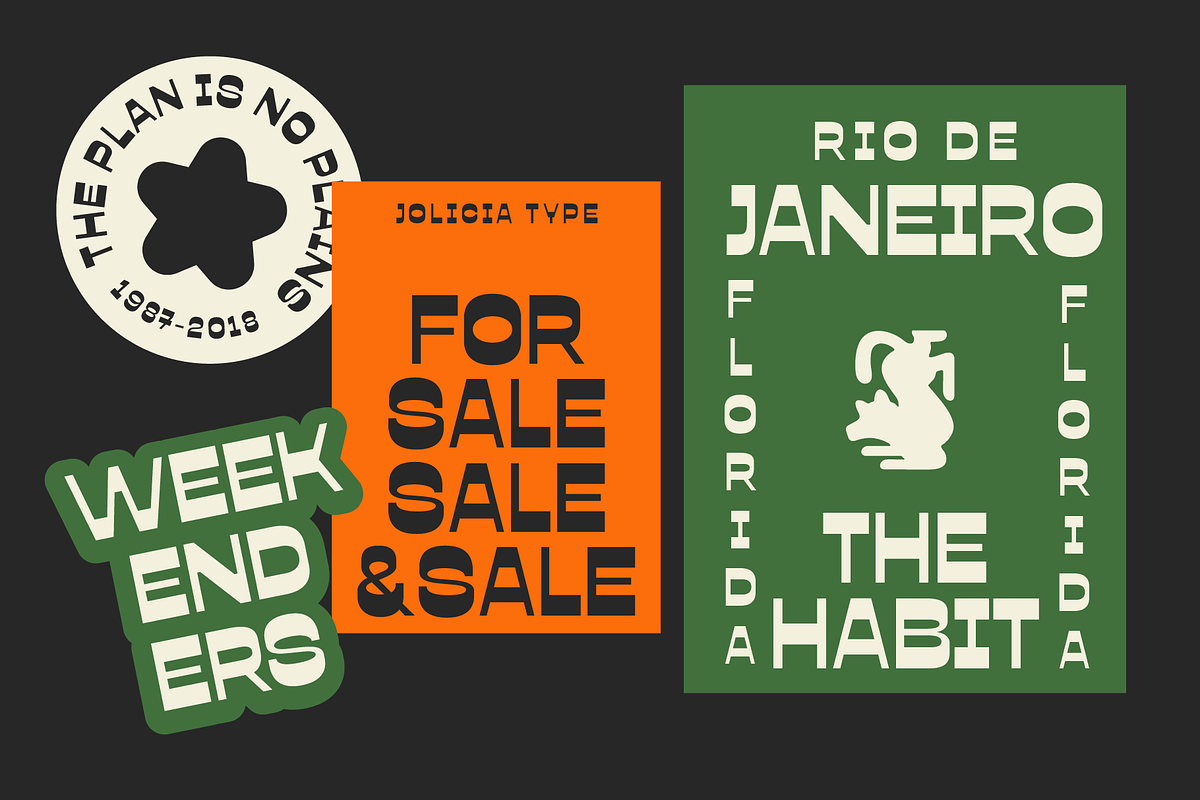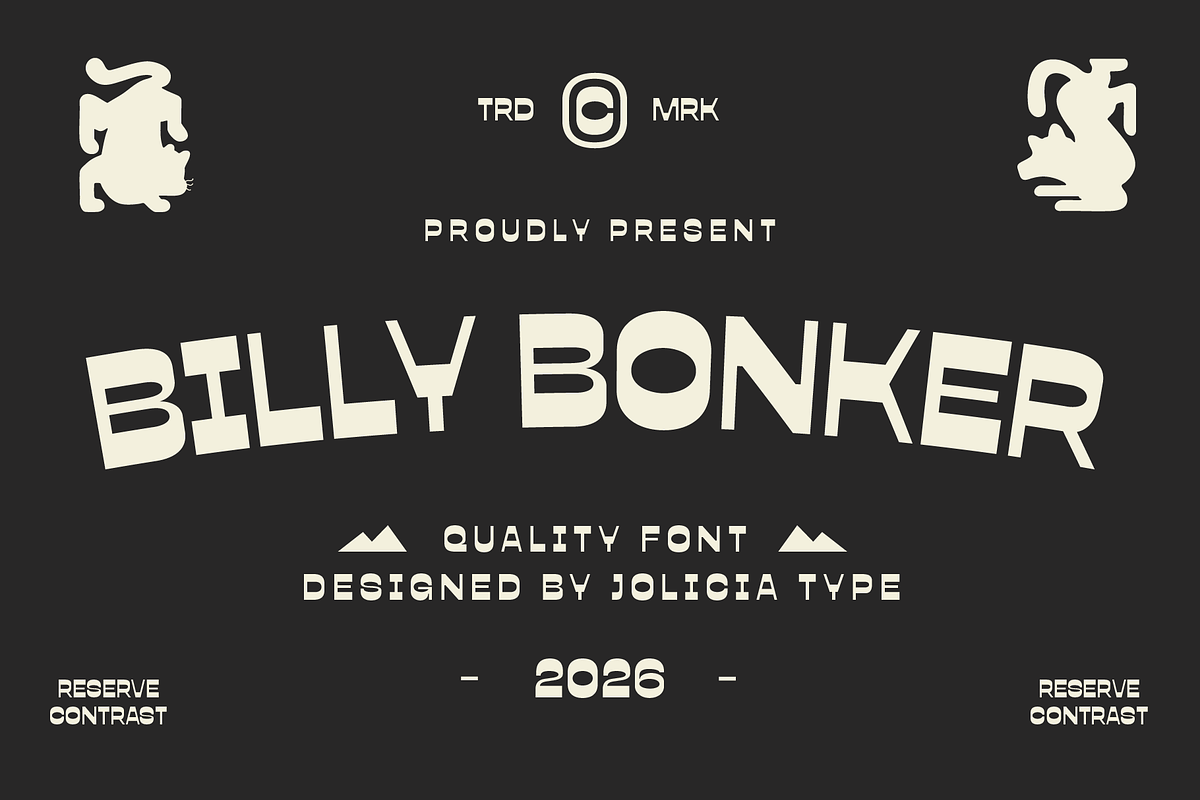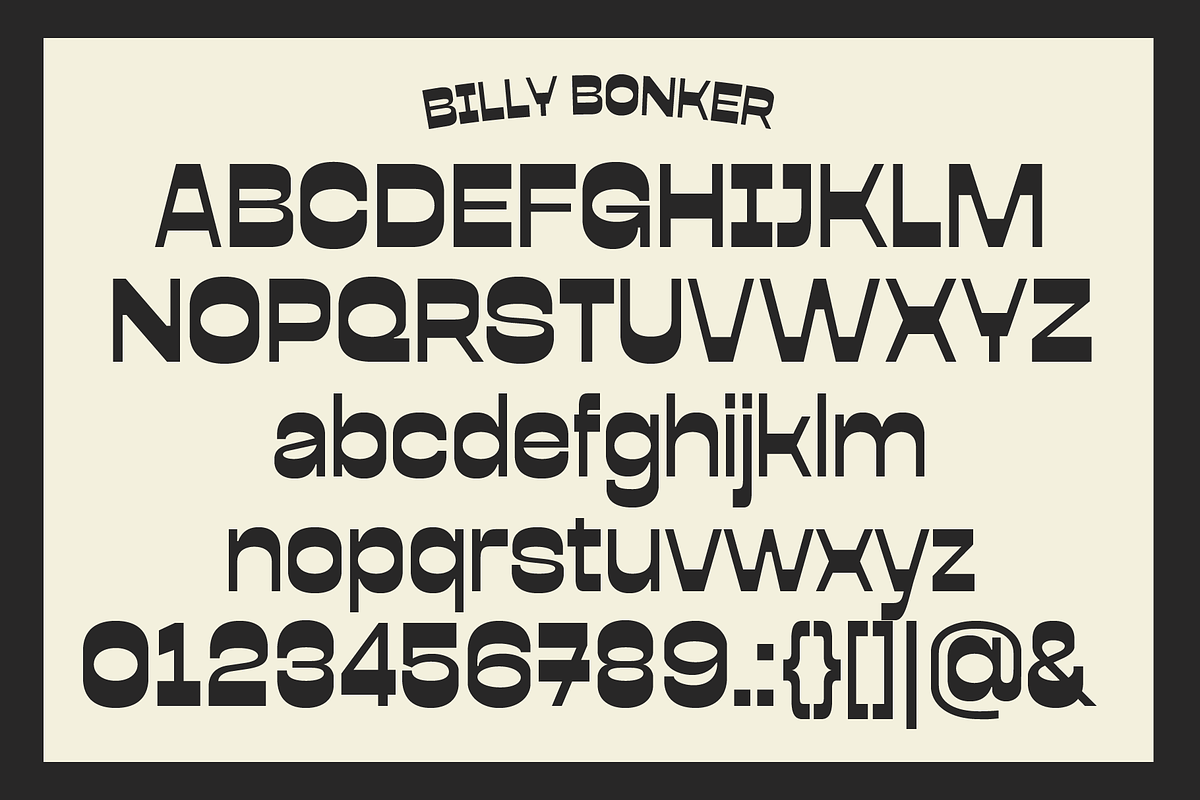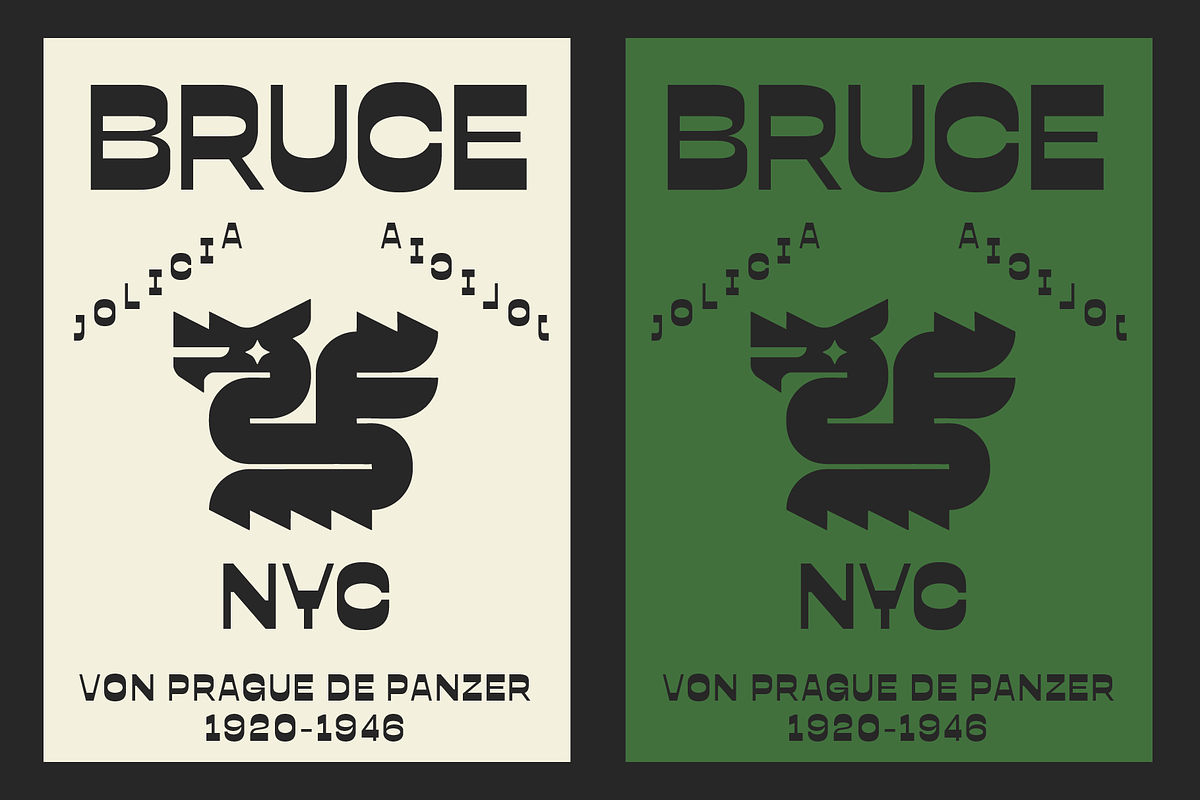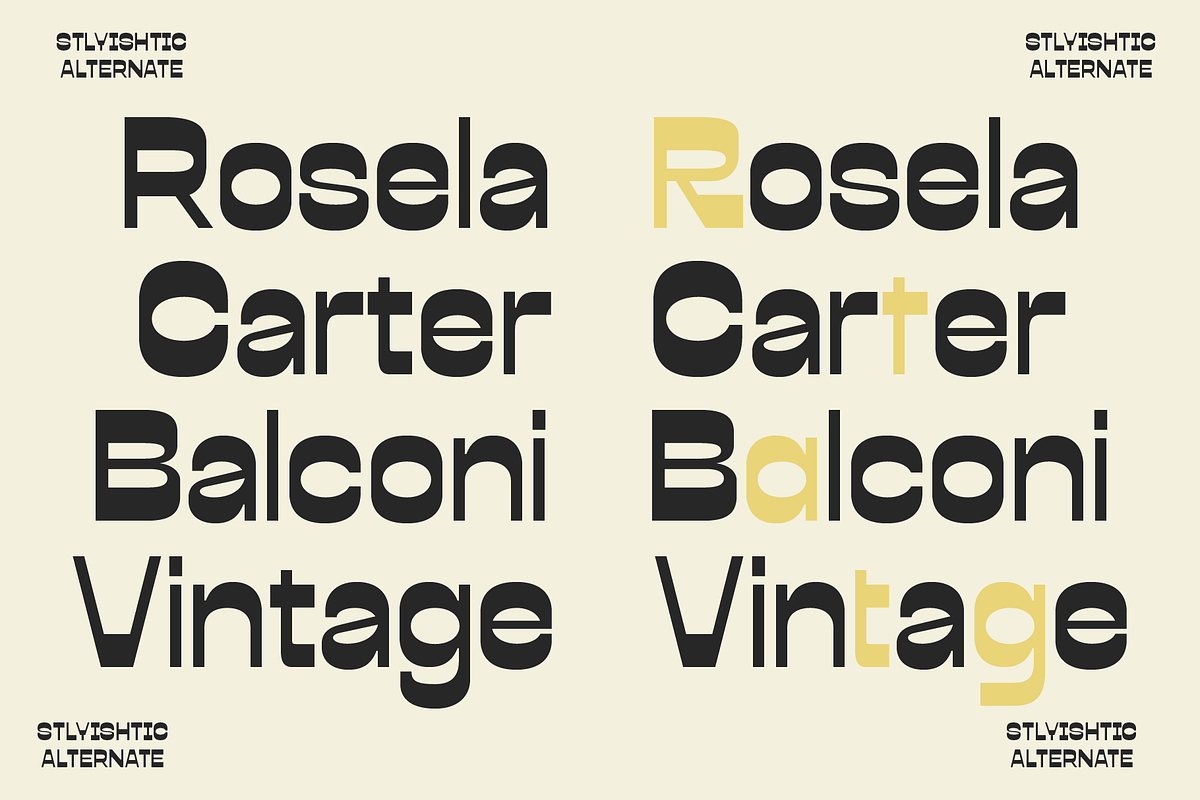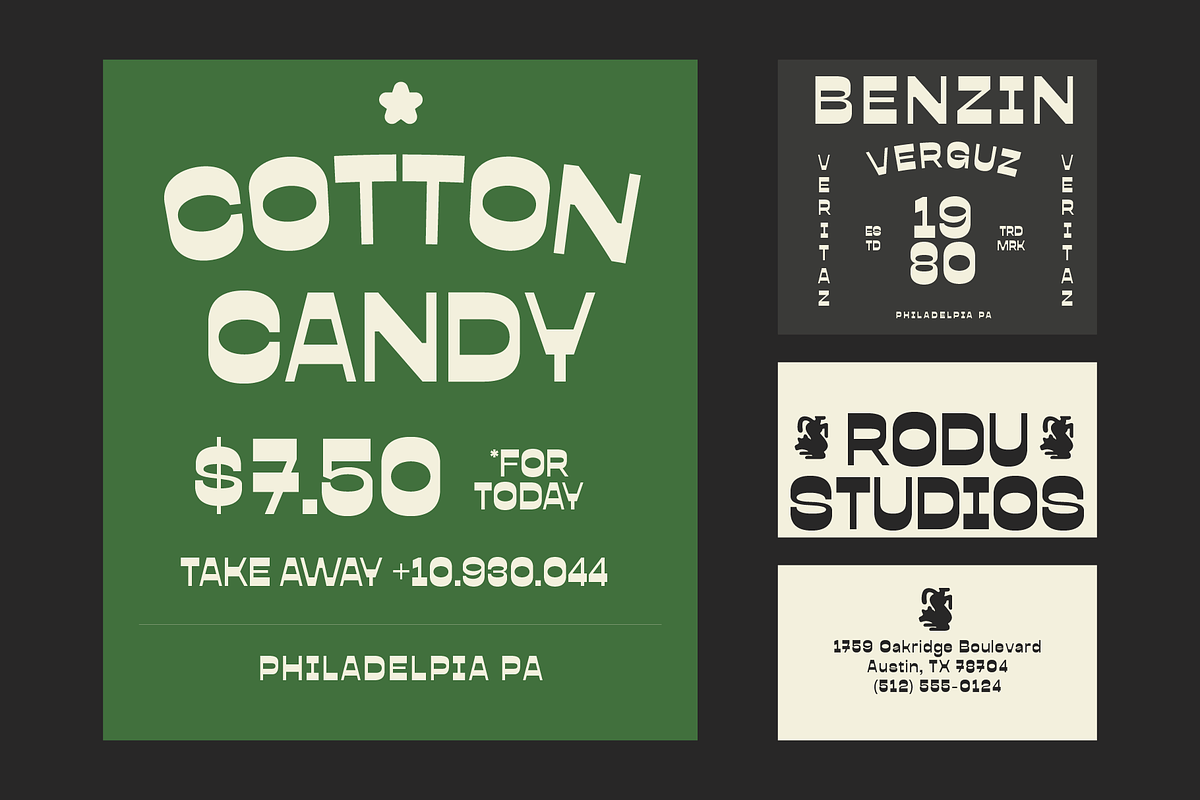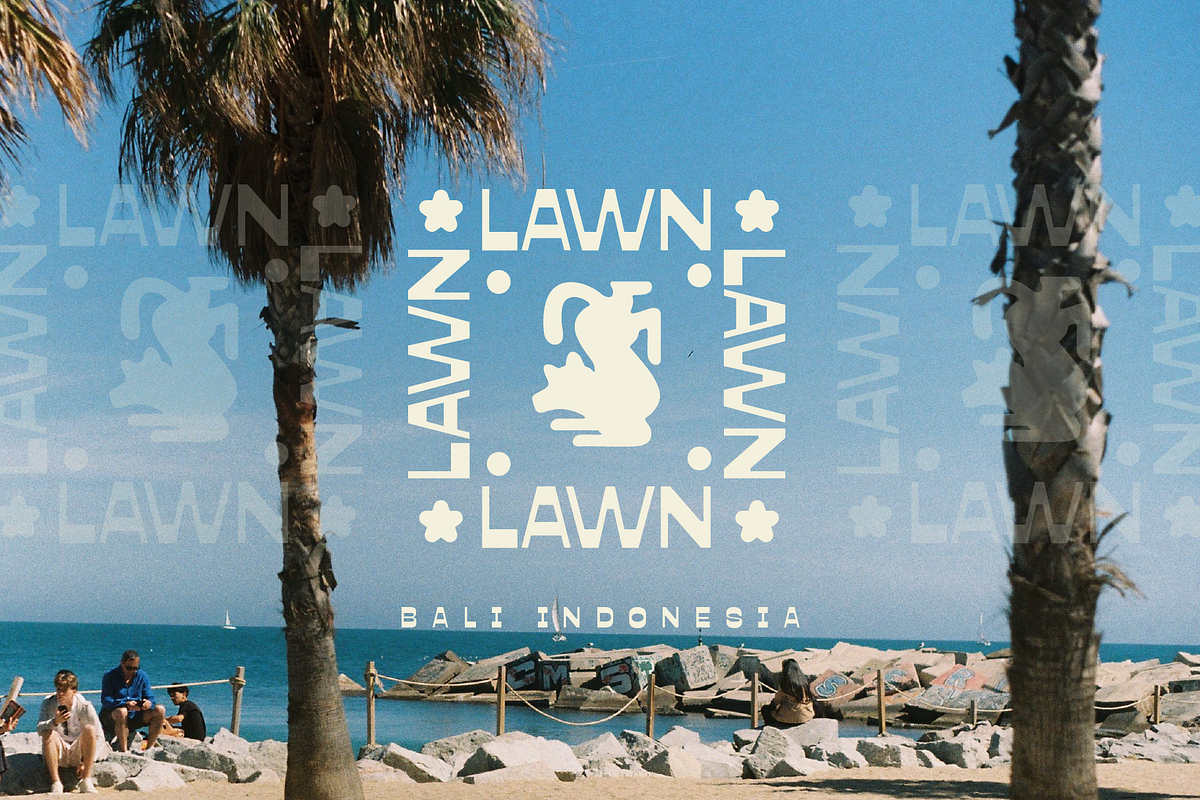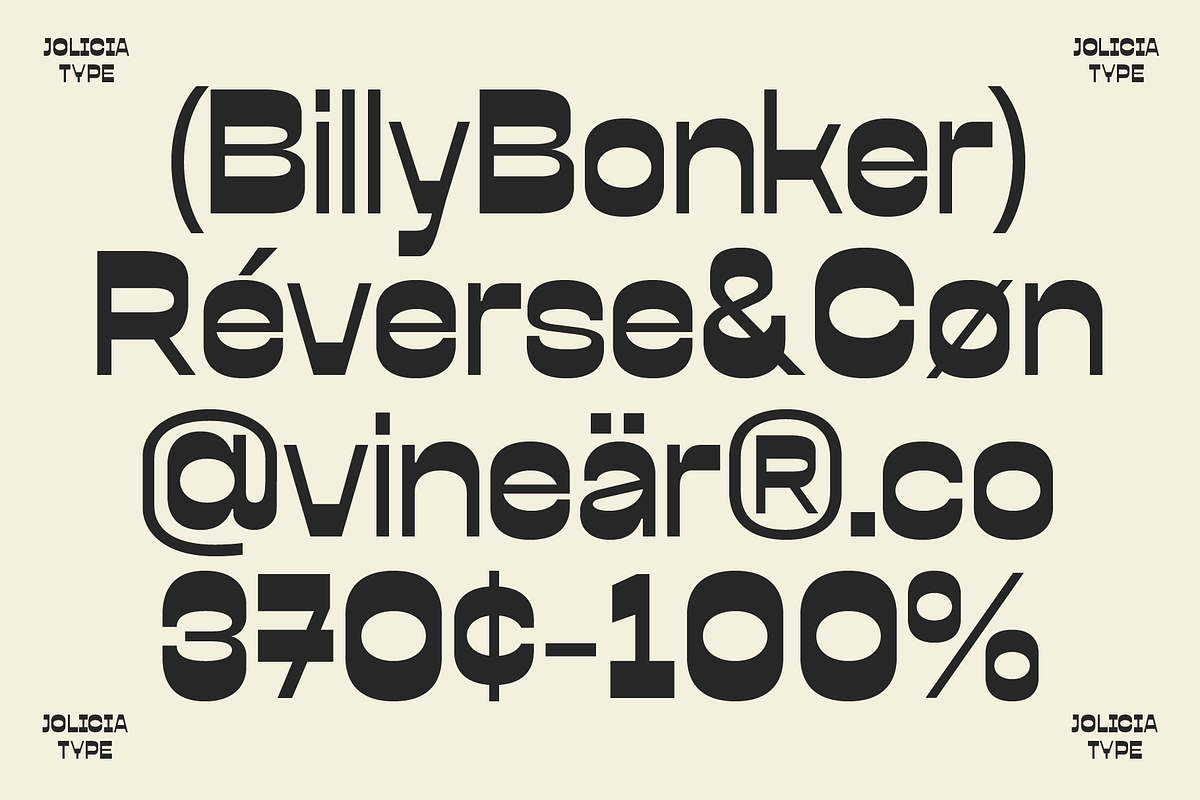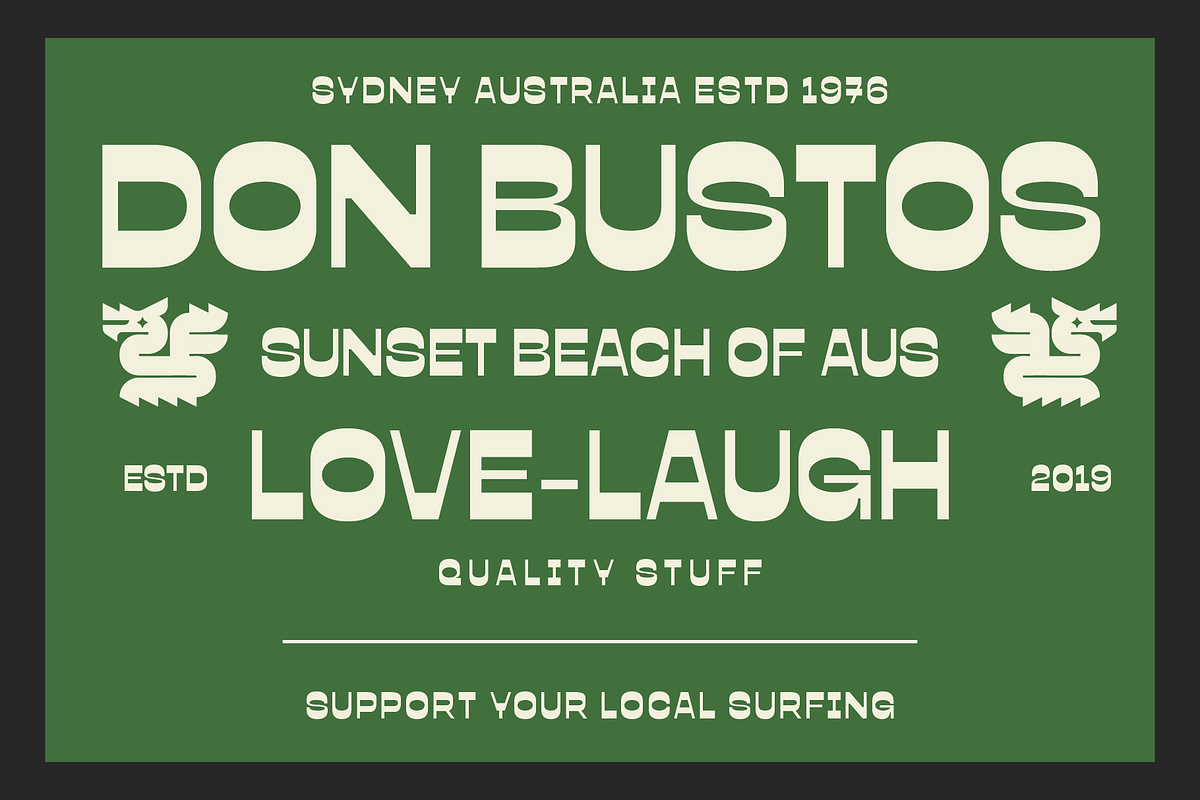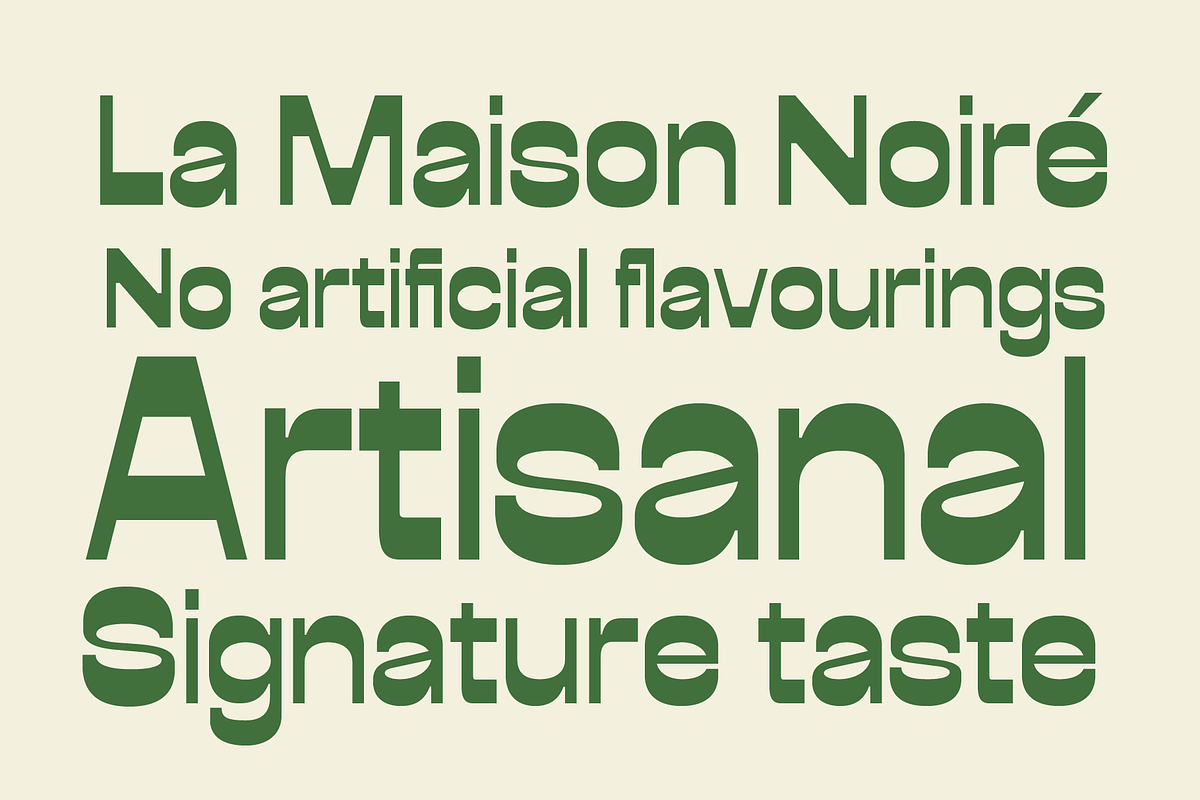
Billy Bonker | Vintage Sans
Billy Bonker is a bold reverse contrast sans serif font that captures the unmistakable spirit of vintage and retro typography with a fresh contemporary twist. Its distinctive reversed stroke weight creates an eye-catching rhythm, while the chunky letterforms and playful proportions deliver a strong nostalgic character inspired by classic signage, old packaging, posters, and mid-century advertising.
Designed to stand out in large sizes, Billy Bonker combines quirky personality with excellent readability, making it a perfect choice for branding, logos, headlines, packaging, apparel, editorial layouts, posters, and social media graphics. Whether you'r e creating a retro-inspired identity or adding a unique vintage flair to modern designs, Billy Bonker brings charm, confidence, and unforgettable visual impact to every project.